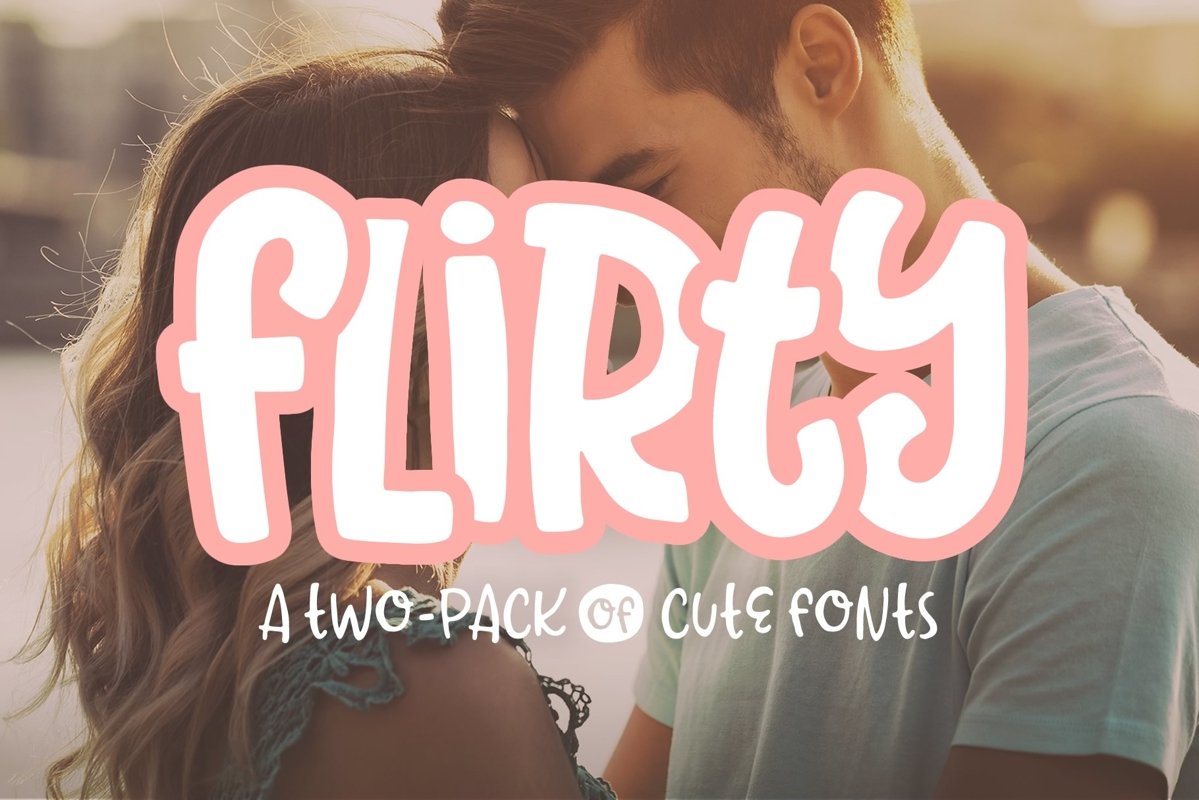
Flirty Font 2-pack
FunAndFlirty
FlirtyNotes
The Flirty Font 2-pack includes two cute, hand-drawn fonts: Flirty Notes font and Fun & Flirty font. English language only.